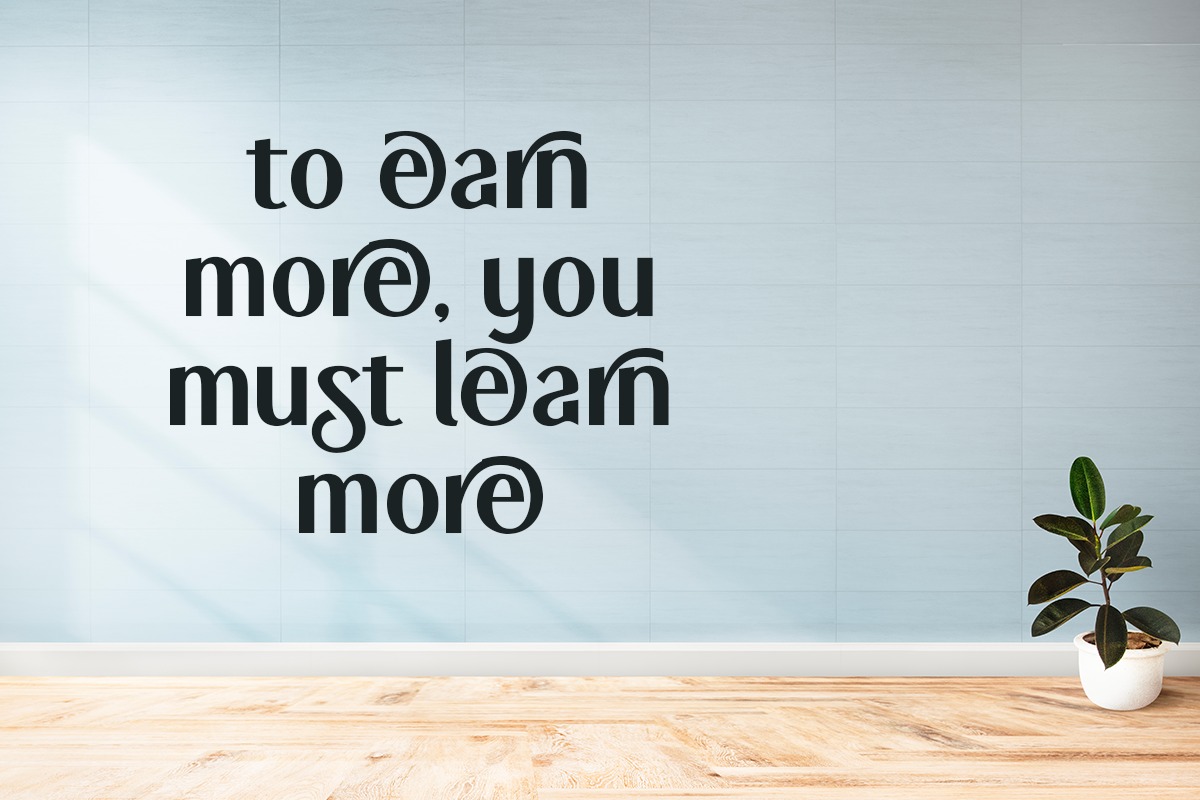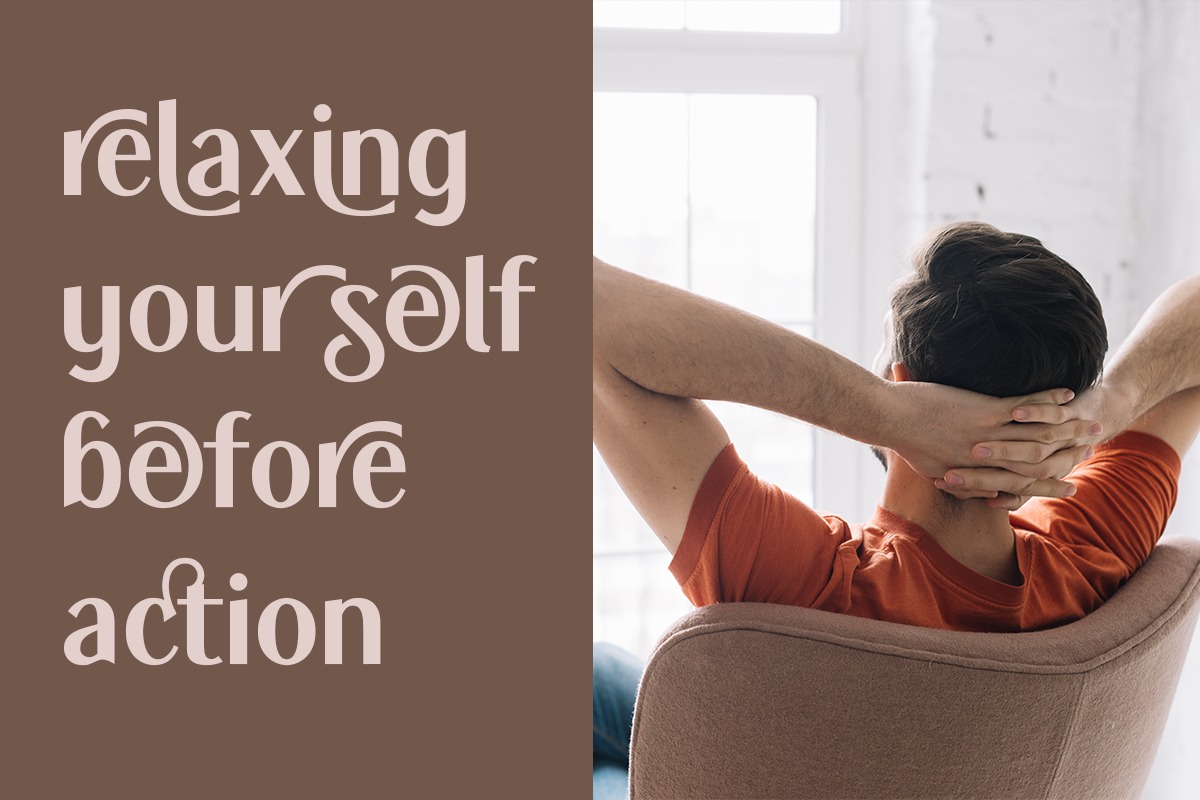
Chillout Font
Chillout Sans Serif Font
This is a bold and neat sans serif font crafted & designed by fontkong. It can easily be matched to various projects, so add it to your most creative ideas and notice how it makes them stand out! It’s perfect for logos or posters, but also works well in other creative projects like branding and identity work.